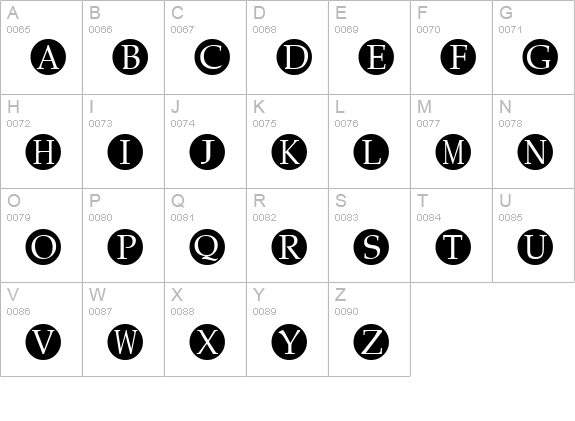
Vignette Font Details
Introducing Vignette font, a sophisticated and elegant typeface that exudes timeless charm and modern appeal. With its delicate curves and intricate details, Vignette is perfect for adding a touch of luxury to your design projects. This versatile font is ideal for creating elegant invitations, branding materials, and editorial designs. What makes Vignette font even more appealing is that it is available for free download at FontsMarket.com. Simply visit the website to access this exquisite font and elevate your creations with its beauty and grace. Don't miss out on the opportunity to enhance your designs with the effortlessly stylish Vignette font.